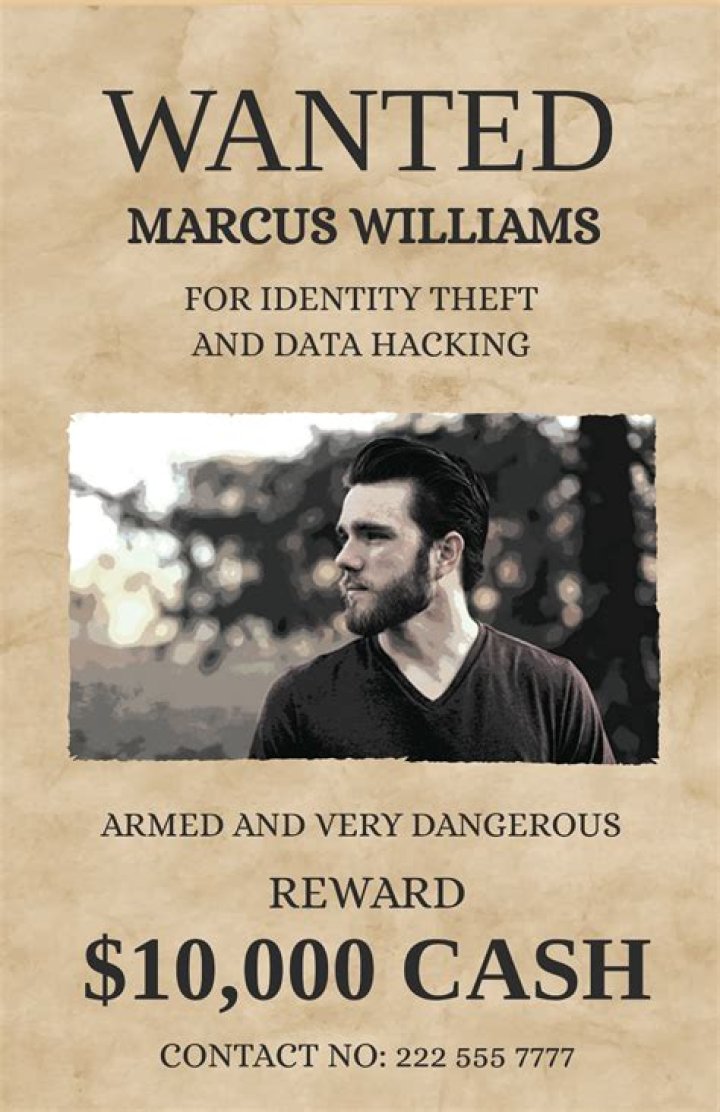
What font is best for wanted poster?
Wanted Poster fonts
Big Surby Mysterylab. Style: Expanded. Mosteraby Mega Type. Style: Regular. Amsterdam Kindomby Letterara. Style: Regular. Vallatoby Scratch Design. Style: Regular. Bambeby Gian Studio. Style: Regular. Kenwynby Talbot Type. Style: Double Dot. Kyhota™by Ingrimayne Type. Style: Barbed. Hawksmoorby Device.
What is the wanted poster font Google Docs?
About Rye. Rye’s bold attention getting shapes are useful for advertising. Rye is a medium contrast design inspired by posters using wood type. It gives off a feeling of the American West.
What font looks like the Old West?
Hothead, a premium Western typeface. Hothead is an uppercase and lowercase sans serif font inspired by Old West culture. It has a masculine, rugged feel, but with a modern twist. The font is a great choice for logos, signage, posters, labels, and packaging design.
What is a Western font?
Western fonts reflect the spirit of the “American West”. They are often equipped with impressive serifs and numerous decorations and recall covered wagons, saloons and the prairies. Given their striking appearance, Western fonts are best used in the larger font sizes, such as in headlines, for example.
How do I make a wanted poster in Word?
Type the words “MOST WANTED” or “WANTED.” Highlight the new poster headline and click the “Home” tab at the top of the screen. Use the options in the “Font” section of the toolbar/ribbon to increase the headline size, change the font and change the color.
How do I make a wanted poster in Google Docs?
How to Make a Poster on Google Docs
Step 1: Open Google Docs. Open Google Docs in your Chrome browser.Step 2: Select Blank Page. Once Google Docs has loaded, select a blank page.Step 3: Open Drawing Page. Under the Insert tab to launch a drop-down menu.Step 4: Design Poster. Step 5: Save.
How do I make a wanted poster in Photoshop?
Step 1: Drop in the Wooden Background. Step 2: Create the “Wanted” Poster Background. Step 3: Intensify the Burned Edges. Step 4: Add the First Block of Text. Step 5: Add the “Wanted” Text. Step 6: Adding More Text. Step 7: Add a Photo of the Wild Bunch Gang. Step 8: Add the Bounty.
What is circus font called?
Latinidad. An eye-catching display font, Latinidad features all uppercase letters in a layered, multicolored style reminiscent of circus posters and mariachi music. Each character is encoded in two image formats, and Latinidad can be used only with apps that support color bitmap fonts.
What is Western European font?
western europeandisplaybrandingsanspackagingwestern europesans-serifmodernlogocentral europeanpostermagazineheadlineeleganteastern europeancyrilliccentral europeadvertisingwestern latinwestern fontswesterntextswashopentypemultilingual.
Where did Western font come from?
While woodblock printing and movable type had precedents in East Asia, typography in the Western world developed after the invention of the printing press by Johannes Gutenberg in the mid-15th century.
How do you make a Most Wanted poster?
Step-by-Step Instructions for Drawing a Wanted Poster
Begin by drawing the outline of the poster. Begin drawing the letters “W,” “A,” and “N.” Draw the letters using short straight lines. Complete the word “WANTED” by outlining the letters “T,” “E,” and “D.” Underline the word “WANTED” with a straight line.
What does a wanted poster need?
The poster will usually include a description of the wanted person(s) and the crime(s) for which they are sought. There is typically a set monetary reward offered to whoever catches the wanted criminal that is advertised on the poster.